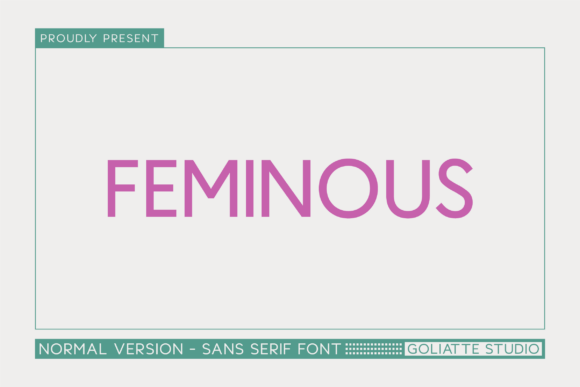
Feminous Font: The Ultimate Modern Sans Serif Typeface for Bold Designs
In the world of typography, a font can make or break a design. With the right typeface, you can convey your message with clarity, style, and impact. Introducing Feminous, a bold, all-caps sans serif font designed specifically for the modern designer. This versatile typeface is perfect for projects that require a sense of professionalism, authority, and style.
Clean Lines, Minimalist Aesthetic
Feminous boasts clean lines and a minimalist aesthetic, exuding strength and authority. Its geometric structure ensures versatility, making it suitable for a wide range of design applications, from digital interfaces to high-end branding. The font’s sharp, crisp edges make a statement, adding a touch of sophistication to any design.
Key Features of Feminous
- All-caps design: Feminous is designed with an all-caps approach, making it perfect for headlines, posters, and anywhere you need your message to stand out.
- Modern, minimalist style: The font’s clean lines and minimalist aesthetic ensure a focus on readability and style.
- Bold, clean lines: Feminous features bold, clean lines that convey confidence and professionalism.
- Ideal for branding and design: This typeface is perfect for branding, logos, packaging, and digital design, making it a versatile addition to any designer’s toolkit.
Perfect for a Range of Design Applications
Feminous is perfect for brands, agencies, and designers looking to create a modern, authoritative identity. Its versatility makes it suitable for a range of design applications, including:
- Branding and logos: Create a lasting impression with a bold, memorable logo that showcases your brand’s personality.
- Digital design: Use Feminous to create stunning digital interfaces that are both functional and visually appealing.
- Print material: Add a touch of sophistication to your print materials, including brochures, flyers, and posters.
- Packaging design: Make your product stand out on store shelves with bold, eye-catching packaging.
Who is Feminous Suitable For?
Feminous is especially suitable for:
- Tech companies: Create a modern, authoritative identity that showcases your brand’s innovative spirit.
- Corporate branding: Use Feminous to create a bold, professional image that reflects your company’s values and mission.
- Luxury design projects: Add a touch of sophistication and elegance to your luxury design projects with Feminous.
Why Choose Feminous?
With Feminous, you can:
- Create a lasting impression: Make a bold statement with your design and leave a lasting impression on your audience.
- Convey authority and professionalism: Use Feminous to convey confidence, authority, and style in your designs.
- Enhance readability: The font’s clean lines and minimalist aesthetic ensure a focus on readability, making it perfect for both large-scale headlines and smaller text blocks.
In conclusion, Feminous is a versatile, modern sans serif typeface that is perfect for designers looking to create bold, impactful designs. Its clean lines, minimalist aesthetic, and all-caps design make it suitable for a wide range of design applications, from branding and logos to digital design and print material. With Feminous, you can create a lasting impression, convey authority and professionalism, and enhance readability in your designs. Stand out with Feminous – a typeface built to make an impression.